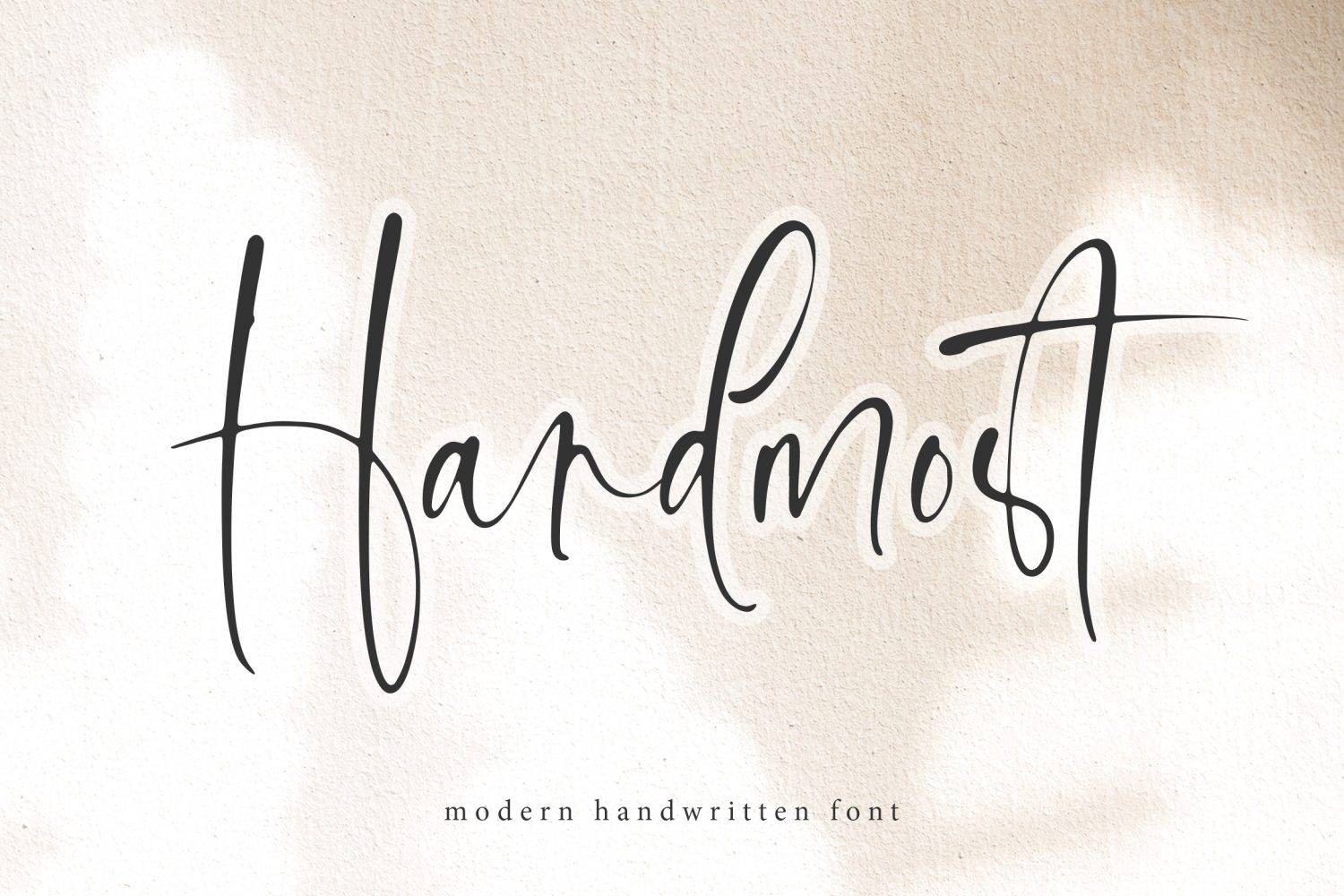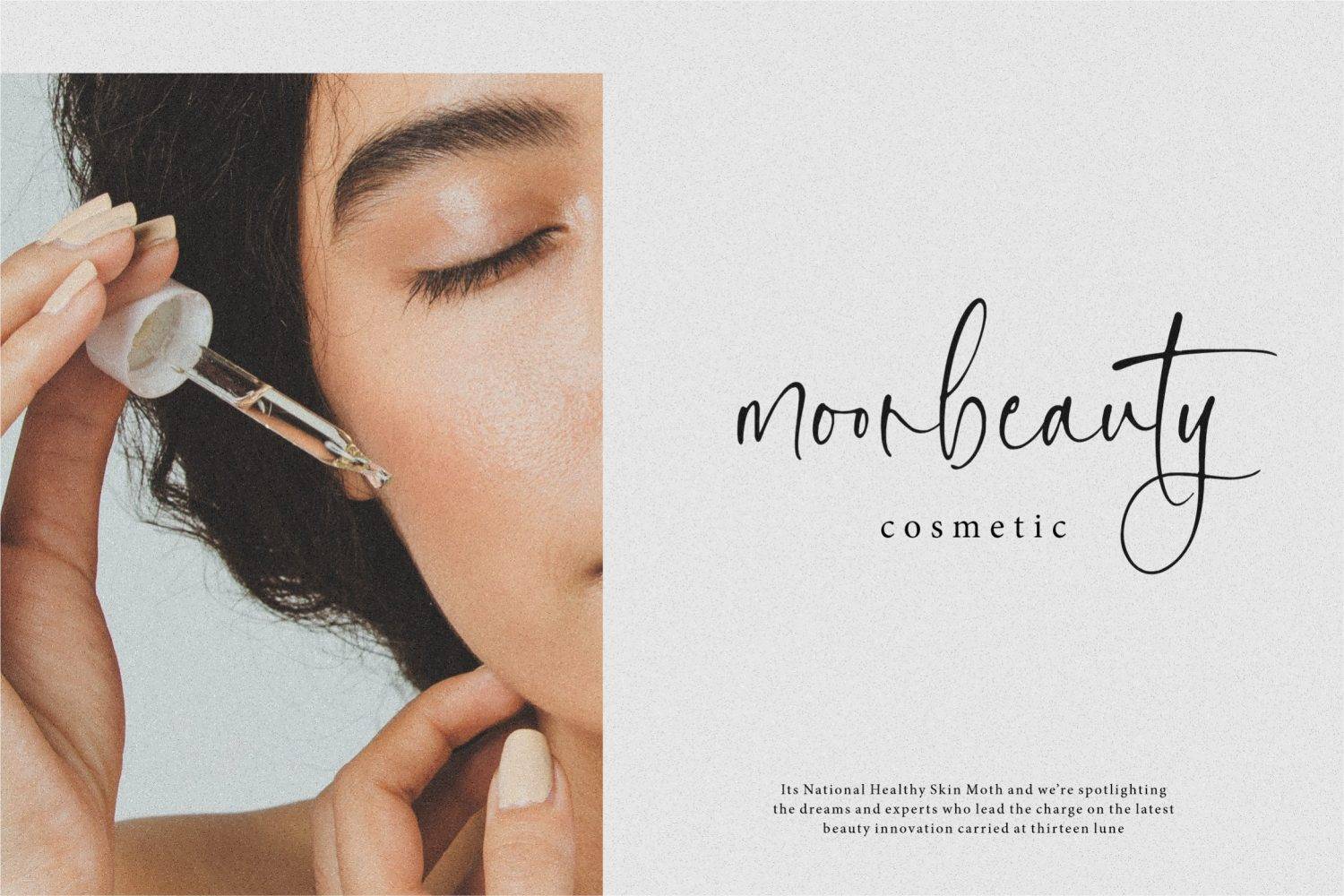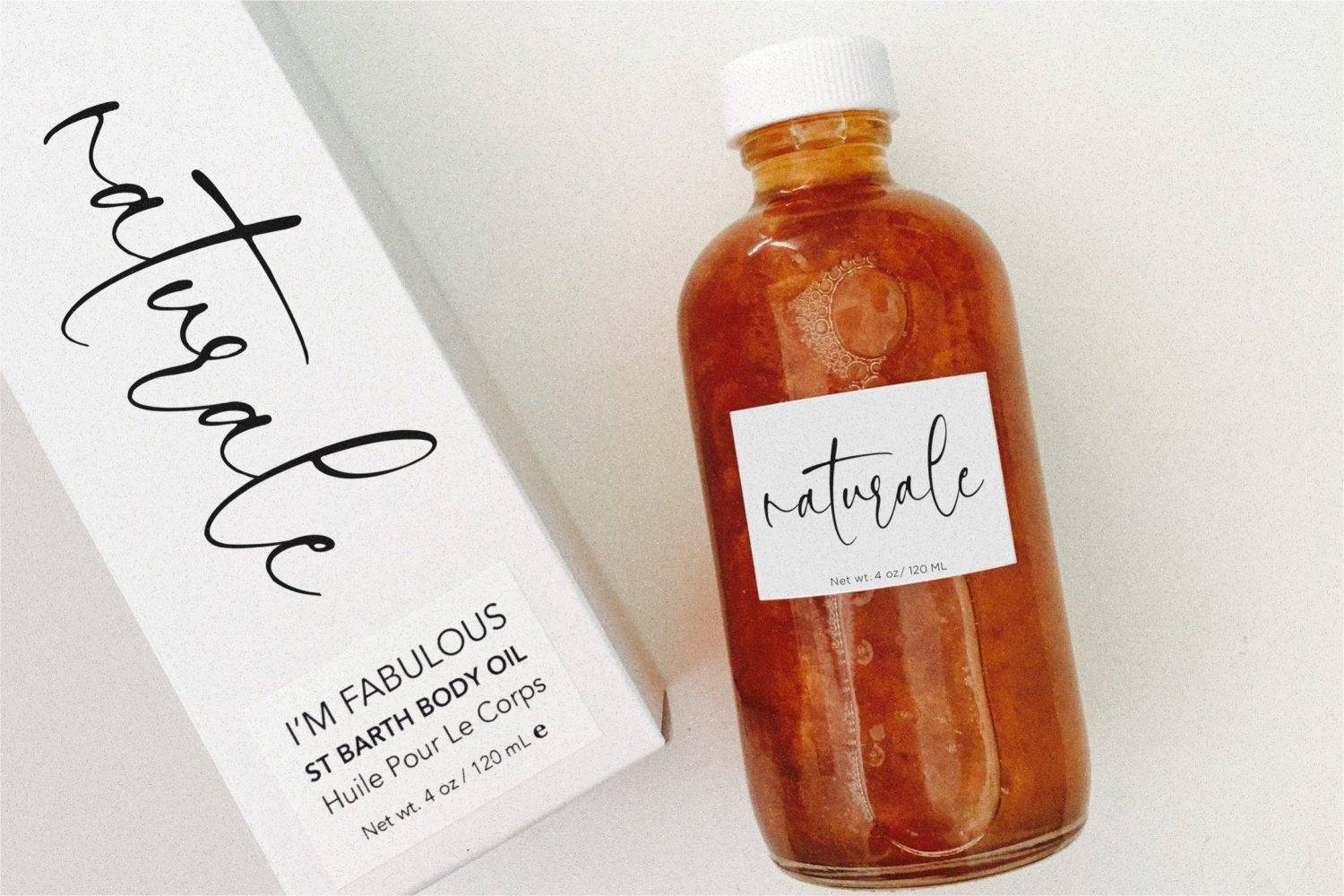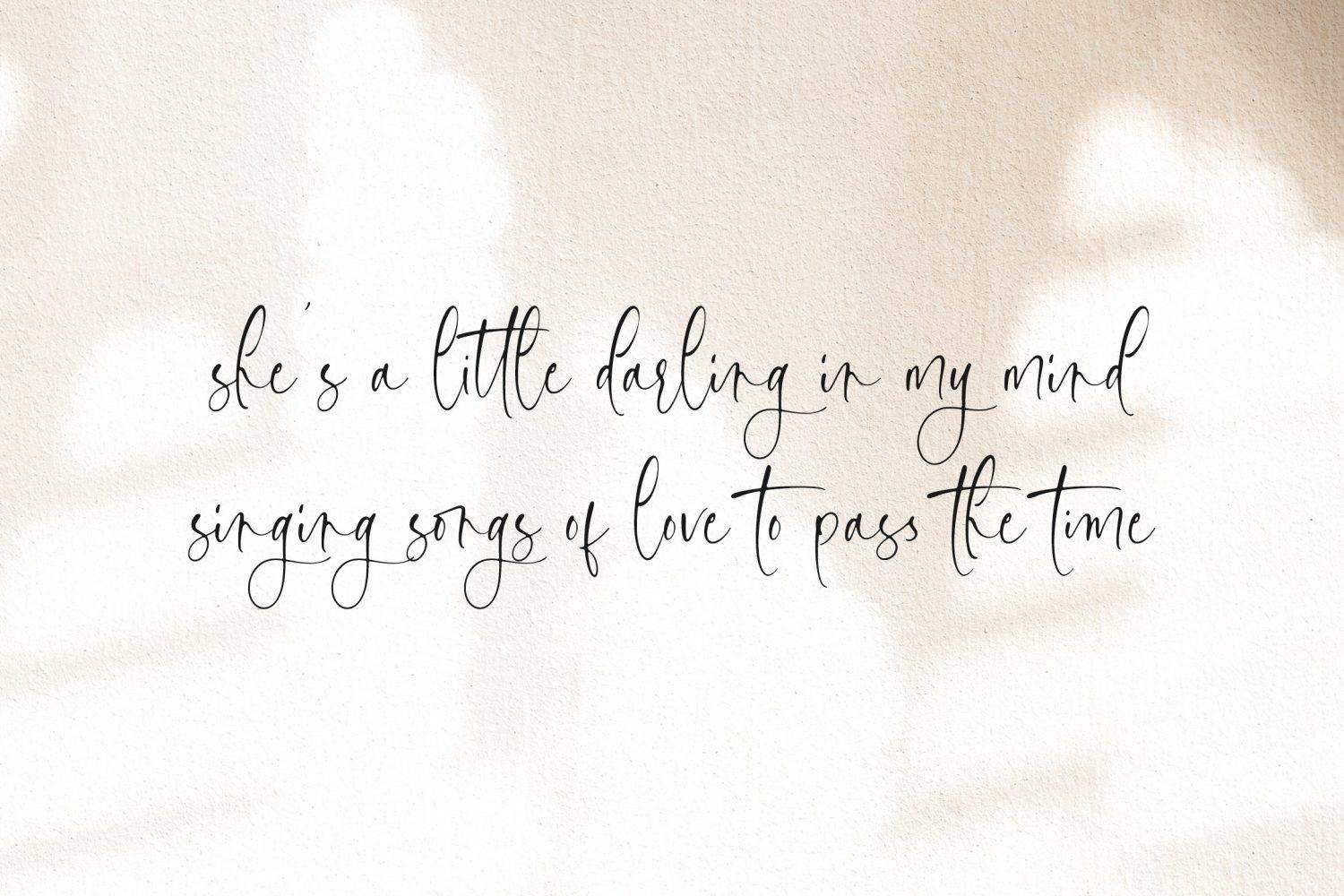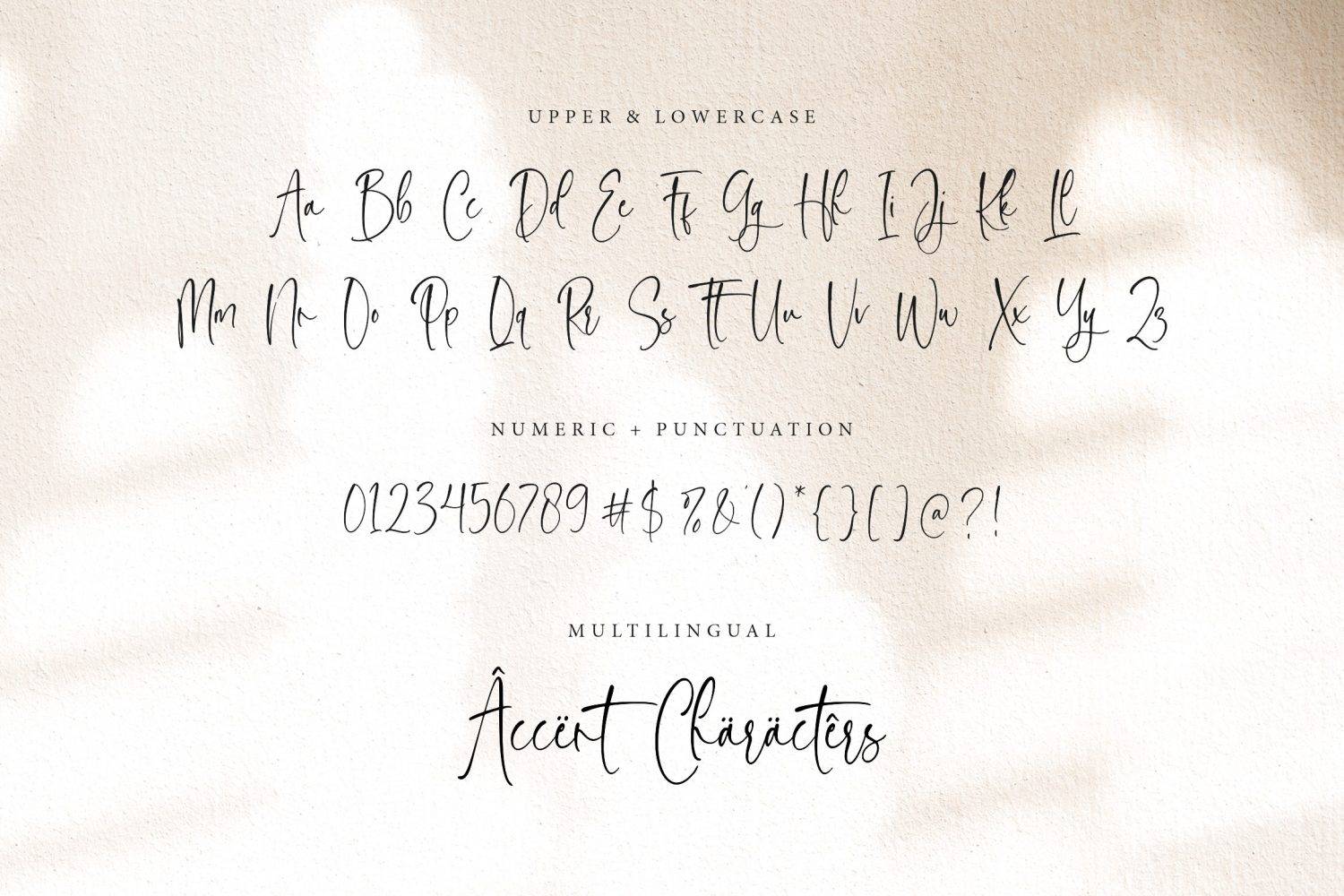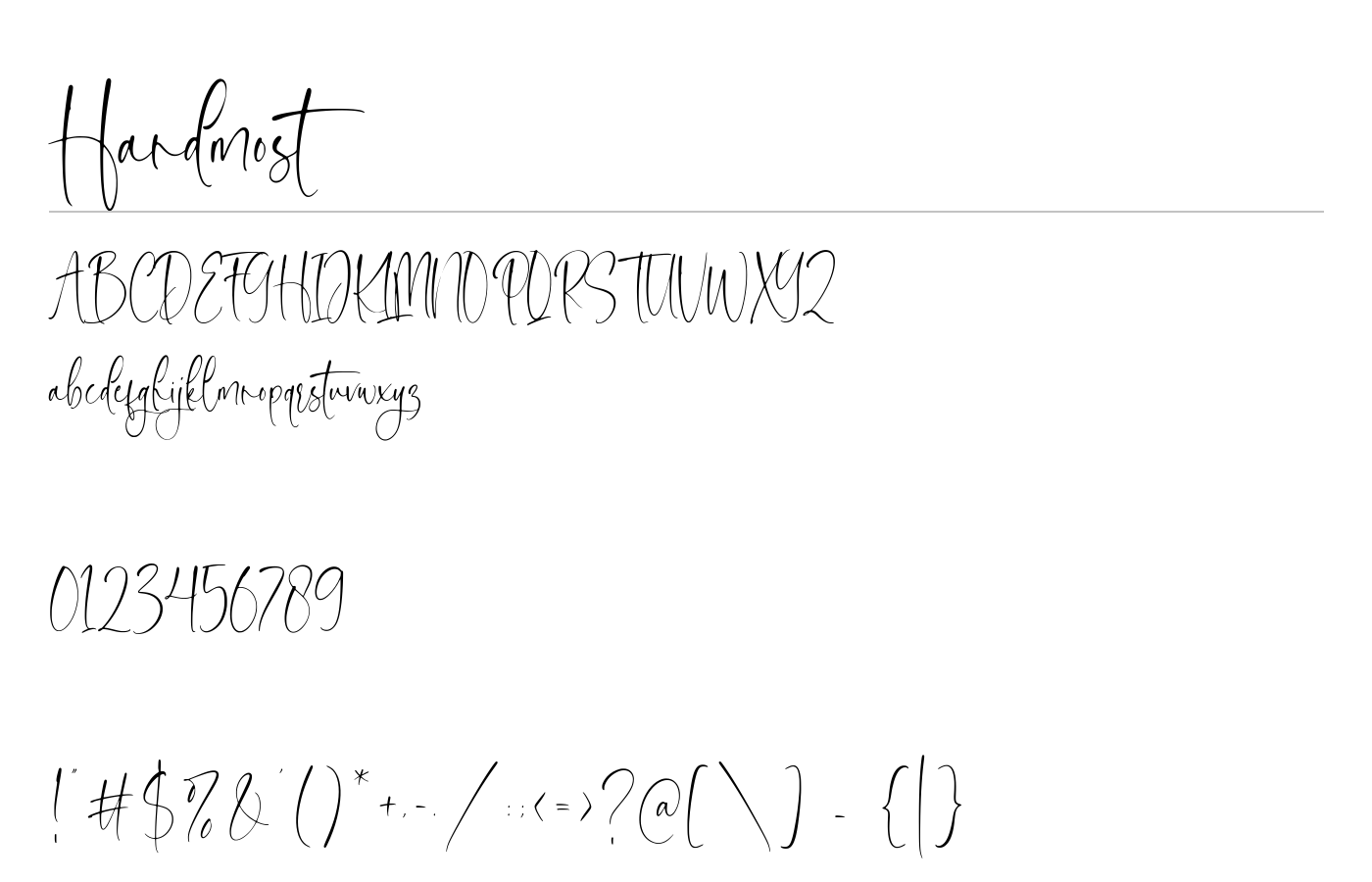
Handmost Font is an elegant, handwritten script with a delicate and airy feel, featuring tall, slender letterforms and smooth, flowing strokes. Its light weight and refined style make it ideal for creative, personal, or feminine branding, invitations, and elegant editorial projects. This font works best where a sophisticated yet approachable aesthetic is desired, lending a charming and stylish touch to logos, packaging, and headlines.
Handmost Font
About Handmost Font